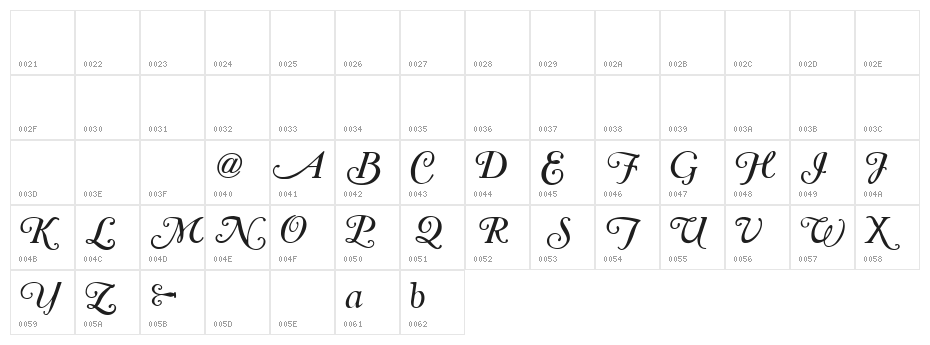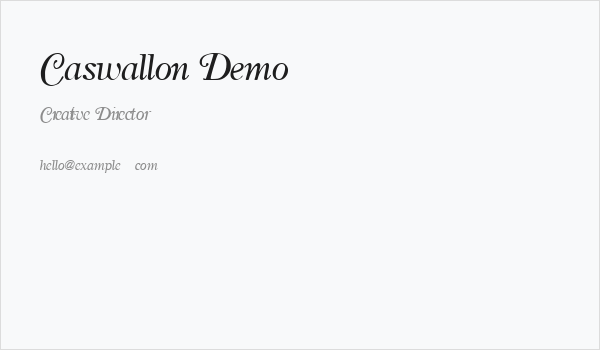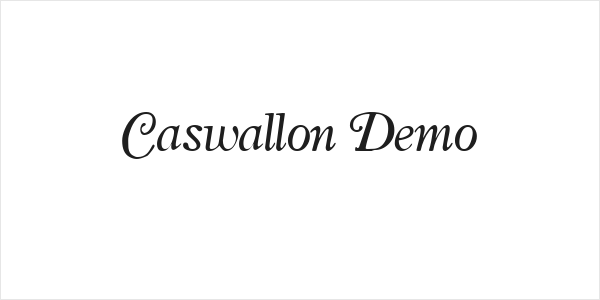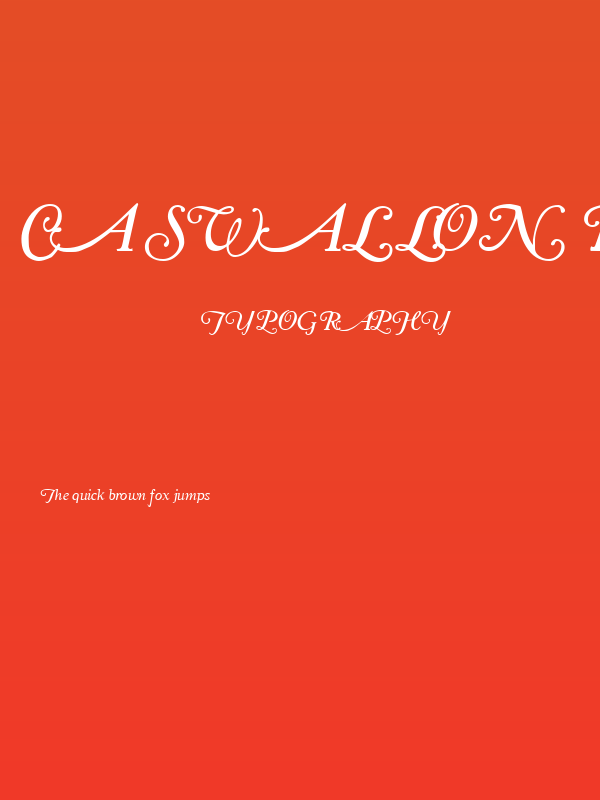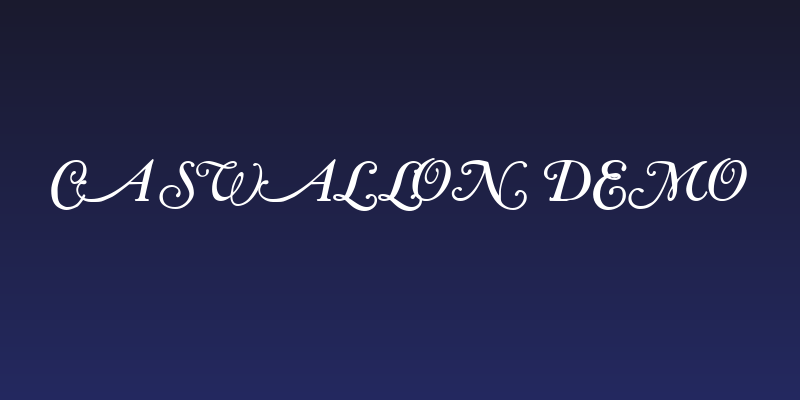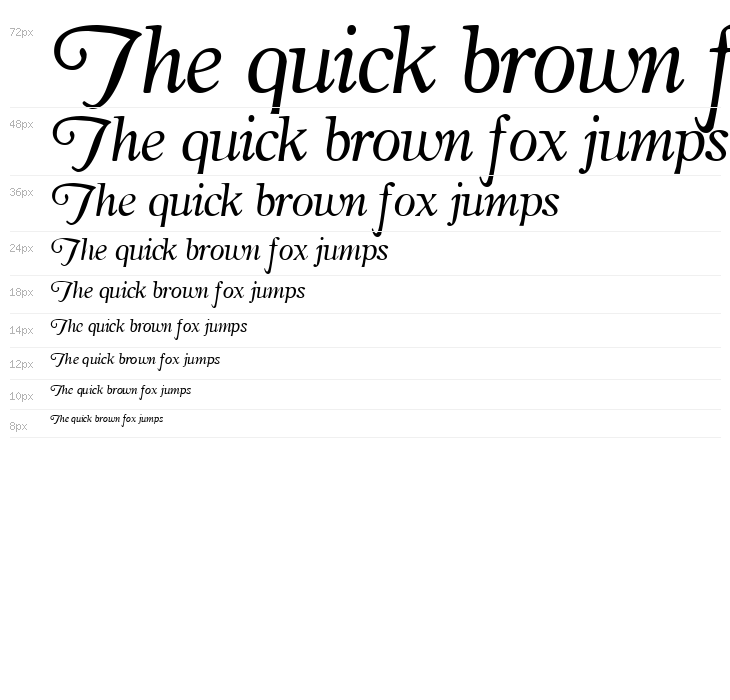
Caswallon Demo Font
Caswallon Demo Description
This elegant script font features a flowing, cursive style with intricate loops and flourishes, particularly in the uppercase letters. The lowercase letters maintain a smooth, connected appearance, enhancing readability while retaining a sophisticated charm. The font's design is characterized by its graceful curves and moderate contrast in stroke thickness, providing a balanced and harmonious look. The overall aesthetic is both classic and decorative, making it suitable for formal and creative applications. The spacing between characters is normal, ensuring clarity and legibility across various uses.
| Overall Style | Classic, Decorative |
| Proposed Projects | Ideal for wedding invitations, elegant branding, greeting cards, and decorative headlines. |